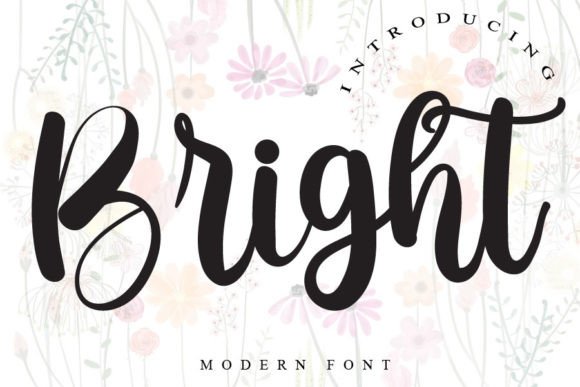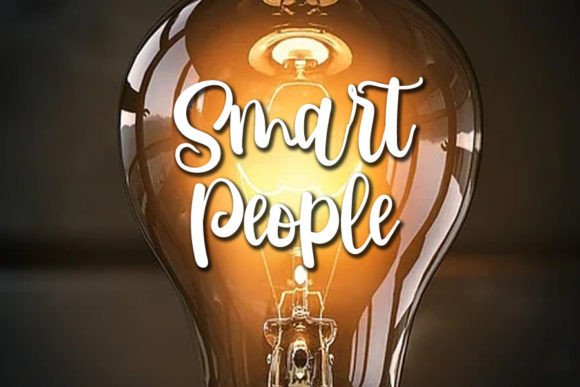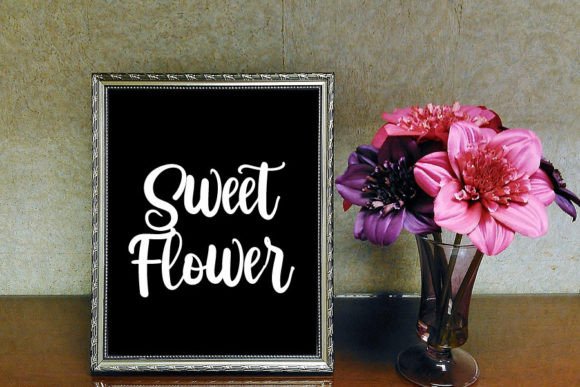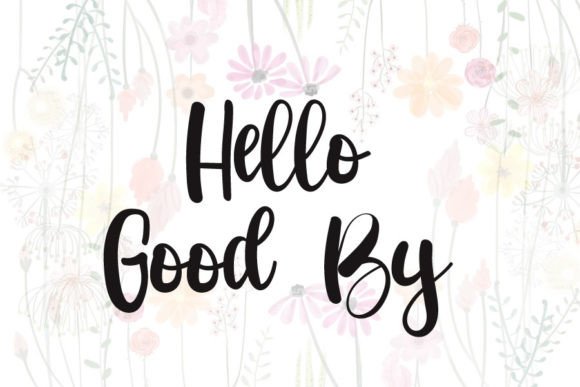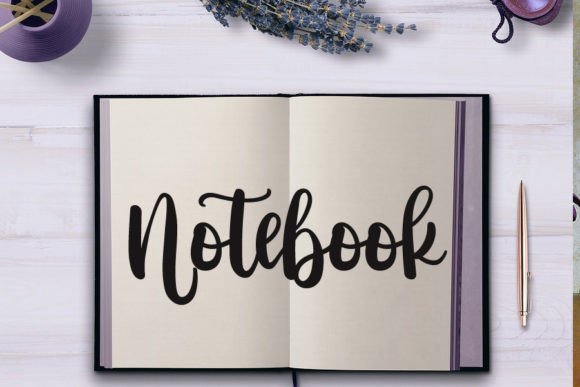
Bright Font
About Bright Font
“Bright” is a fresh and beautiful handwritten font that brings a sense of vibrancy and elegance to your designs. This font’s versatility makes it suitable for a wide range of design purposes, making it a valuable choice for designers. Whether you’re working on YouTube banners, cover logo mockups, wedding invitations, ID cards, flyers, crafts, or any other creative project, “Bright” is designed to enhance your designs and contribute to the progress and development of your business.
The font’s fresh and beautiful design adds a touch of sophistication and uniqueness to your creative work. It is perfect for projects where you want to convey a sense of elegance and individuality, making your designs engaging and memorable.
In the world of design, fonts play a crucial role in conveying style, mood, and visual identity. “Bright” excels in these aspects by offering a handwritten style that is both fresh and unique. Its aesthetics infuse your designs with a sense of creativity and character, contributing to the growth and success of your business.
In summary, “Bright” is more than just a font; it’s a fresh and beautiful design tool that can elevate your projects and help your business progress and develop. Its simplicity and uniqueness make it ideal for designers seeking to create work that is both elegant and distinctive. Whether you’re an experienced designer or just starting your creative journey, “Bright” is the font that can help you create designs that are not only beautiful but also contribute to your business’s success.